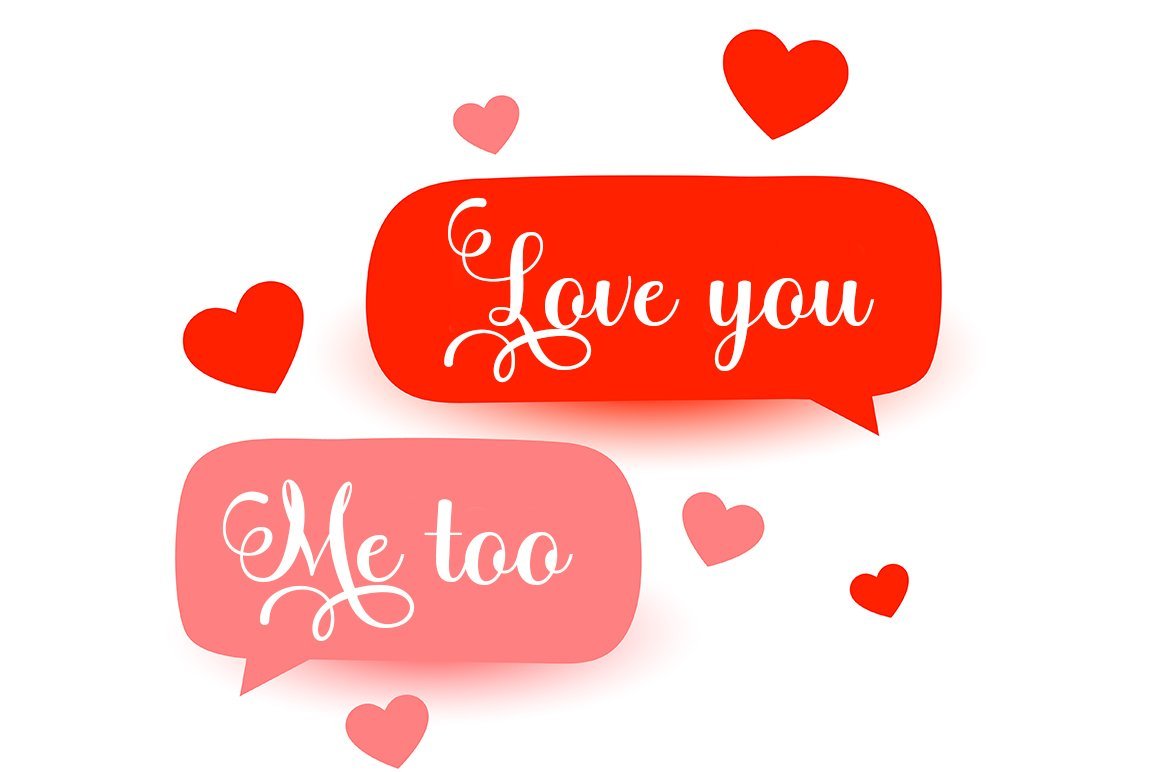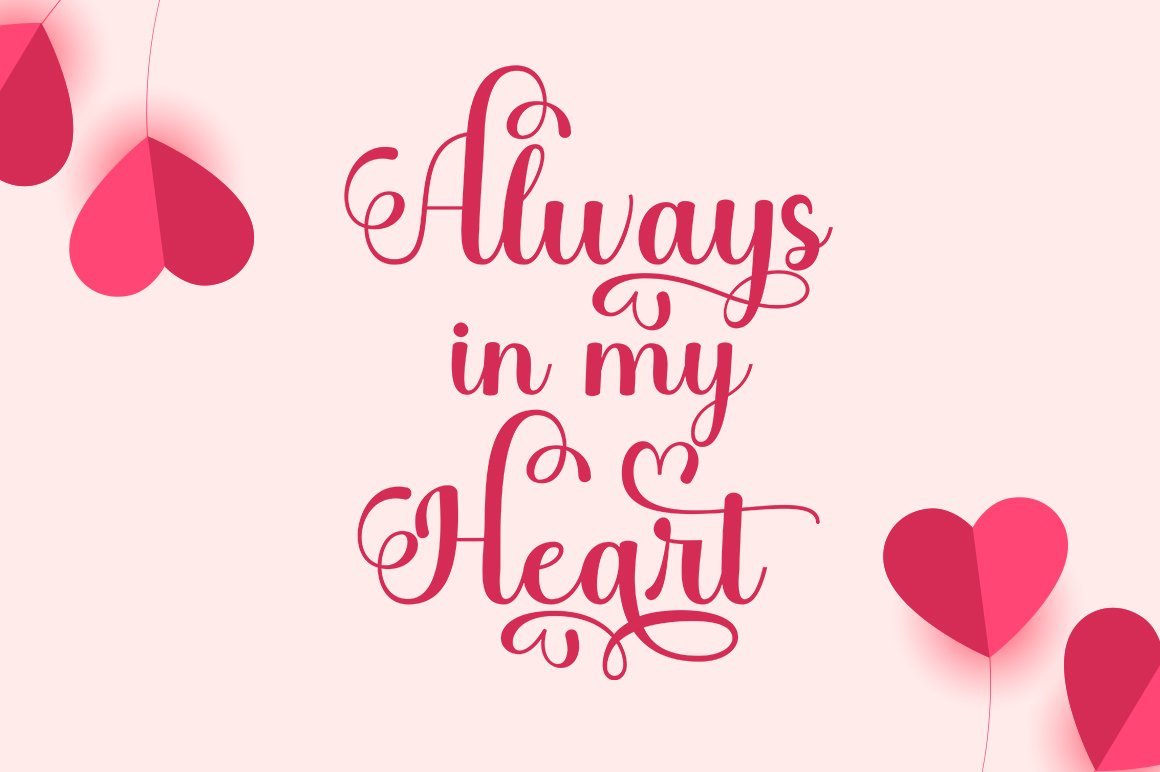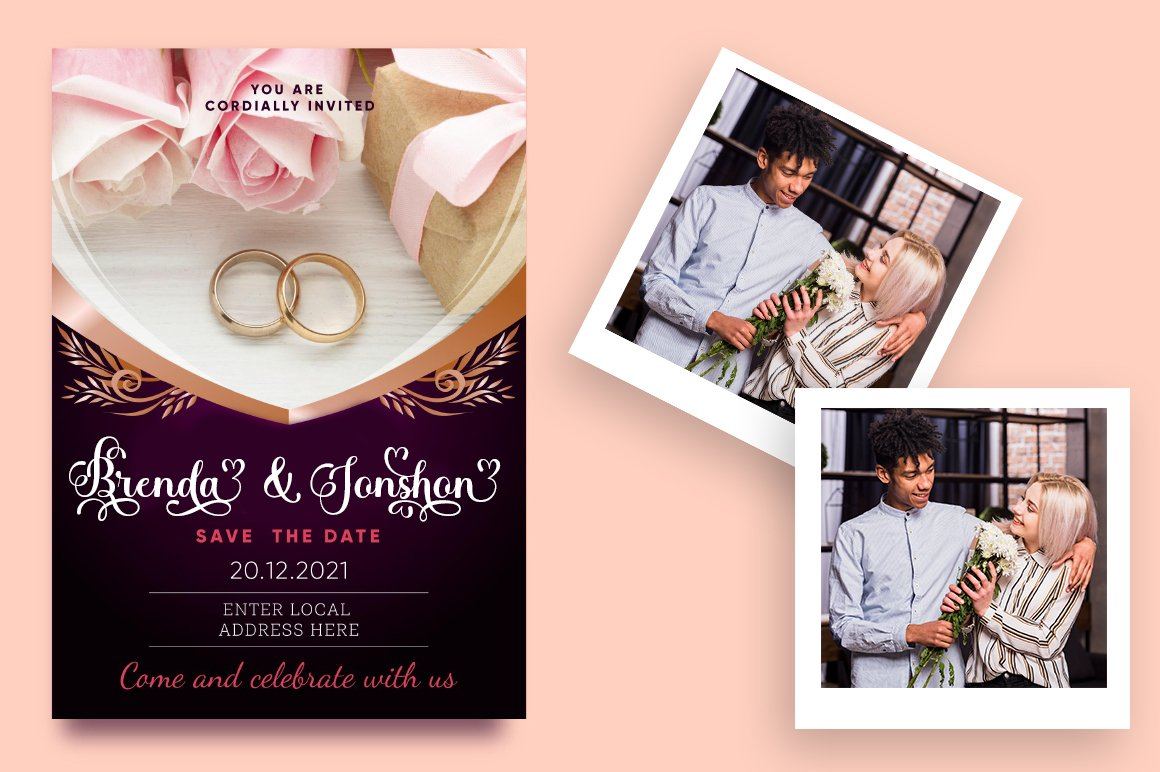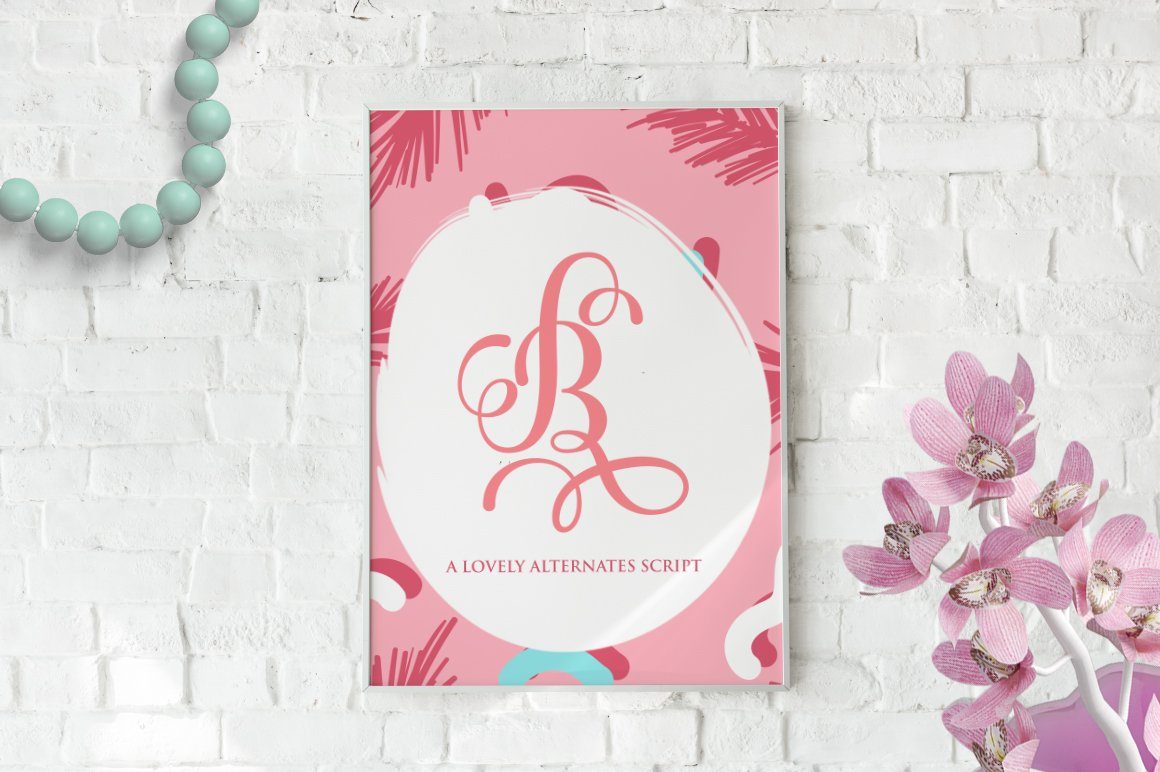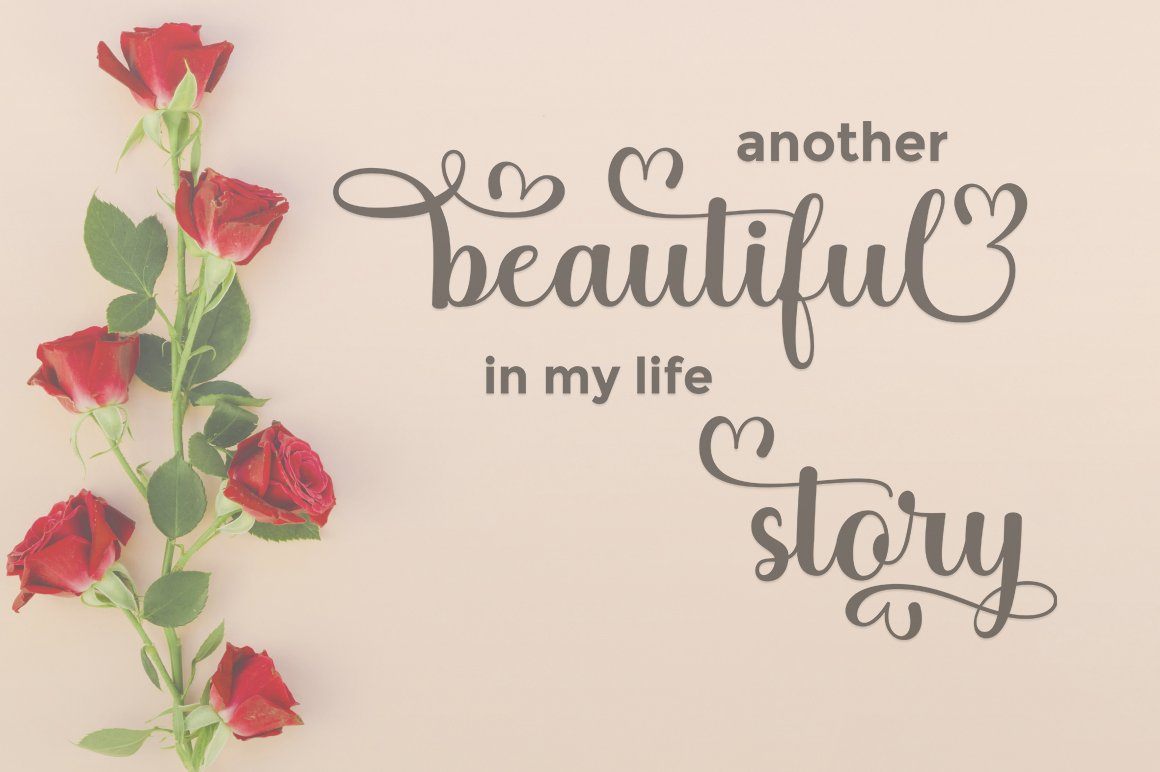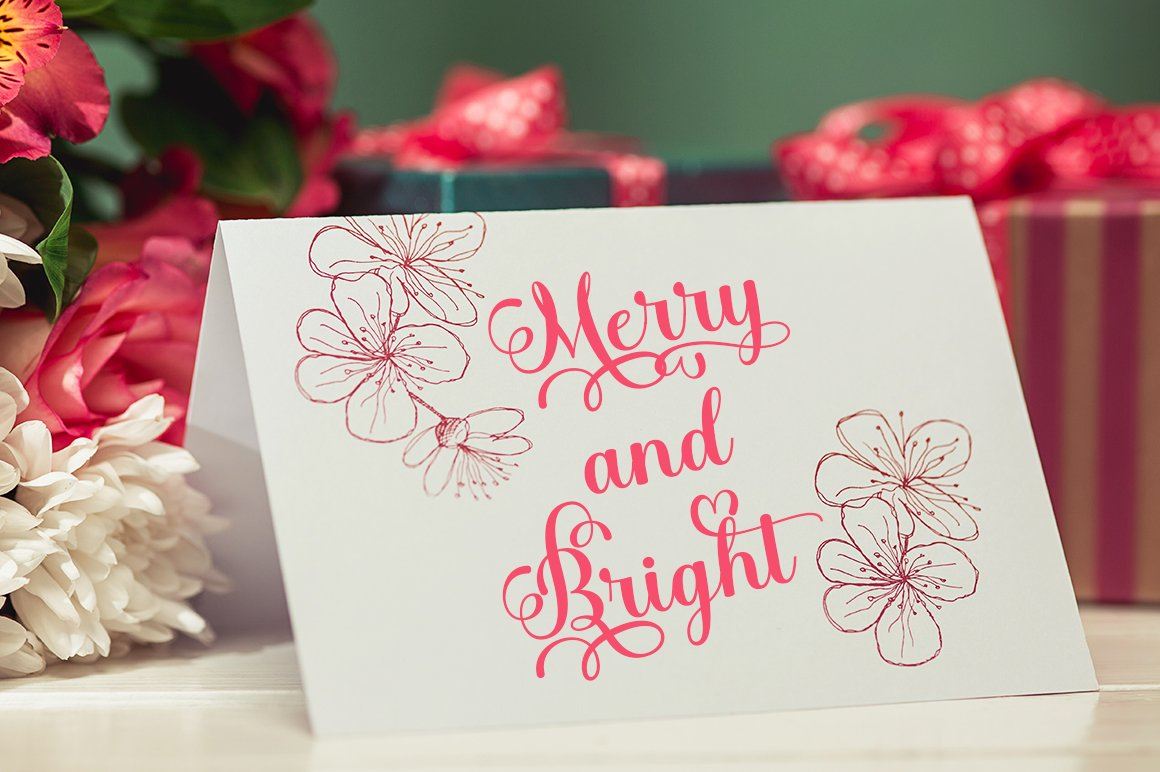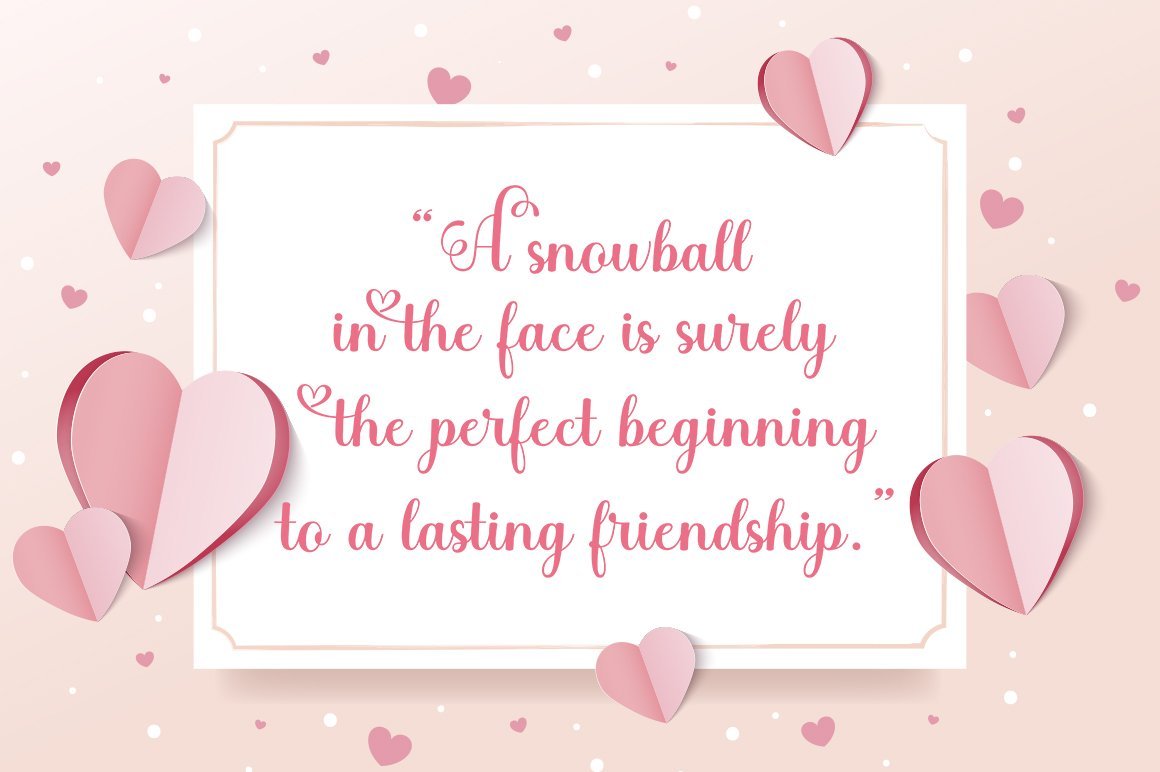
Bleeding Heart
About Bleeding Heart
Bleeding Heart is a smooth, elegant and flowing handwritten font. It has a beautifully balanced character and as a result, it fits into a wide set of designs. Bleeding Heart has a varied baseline, smooth lines, gorgeous glyphs and amazing alternatives. Add to your most creative ideas and watch how they bring them to life!